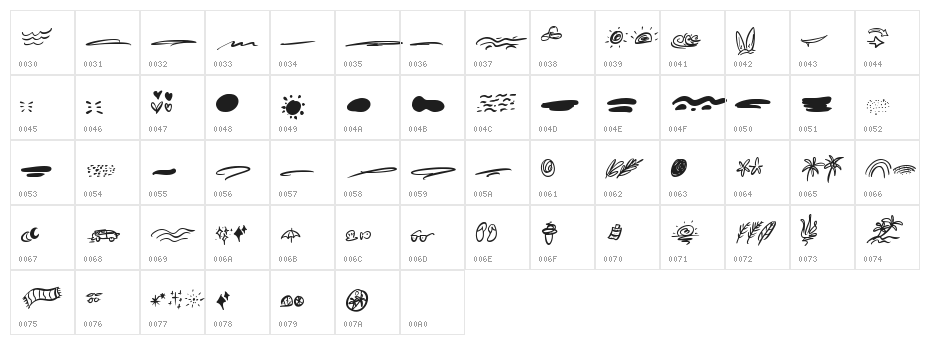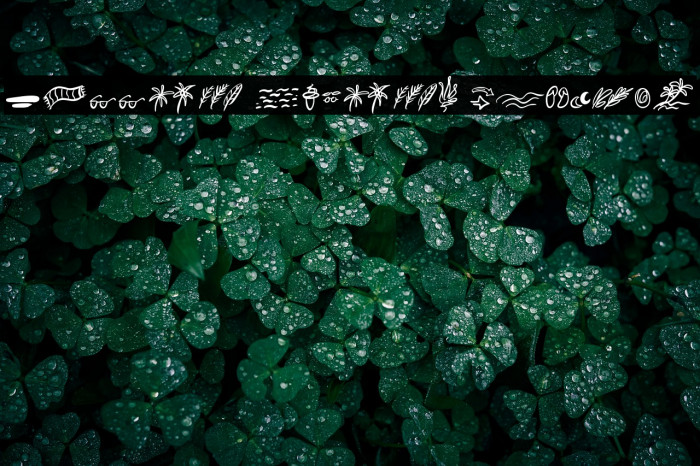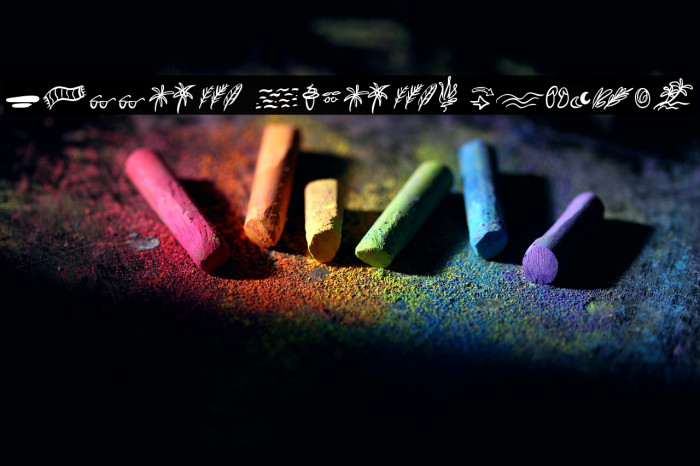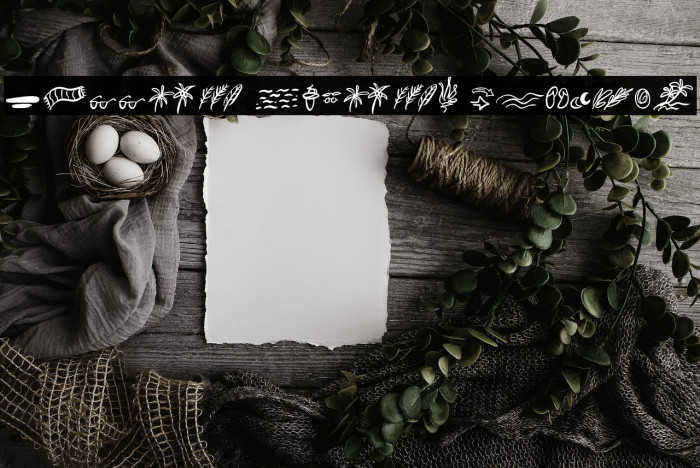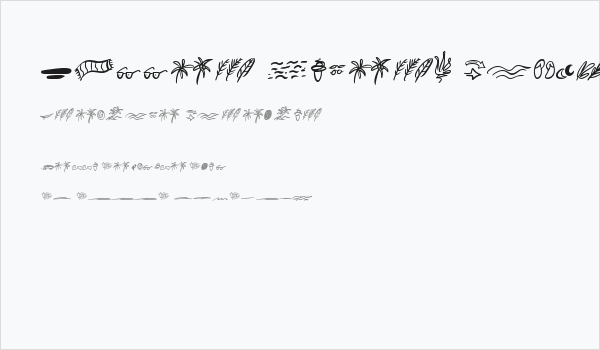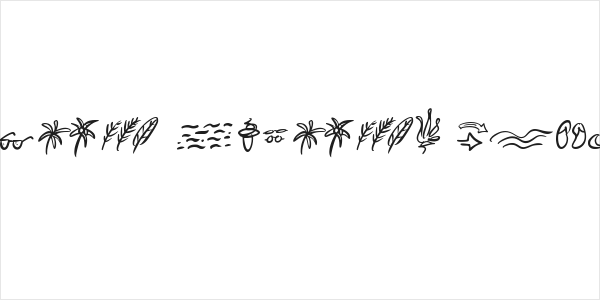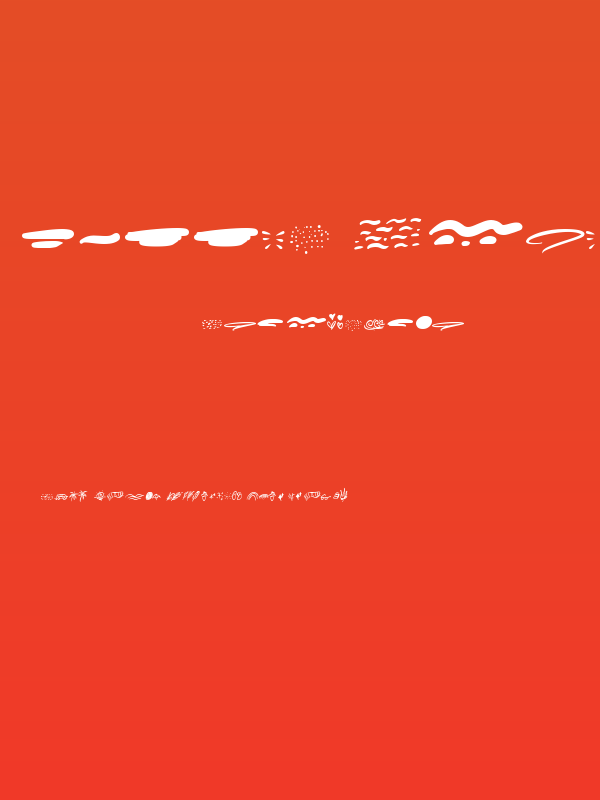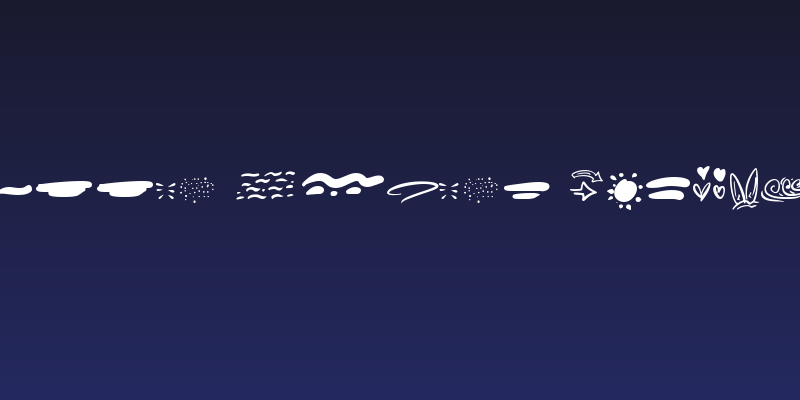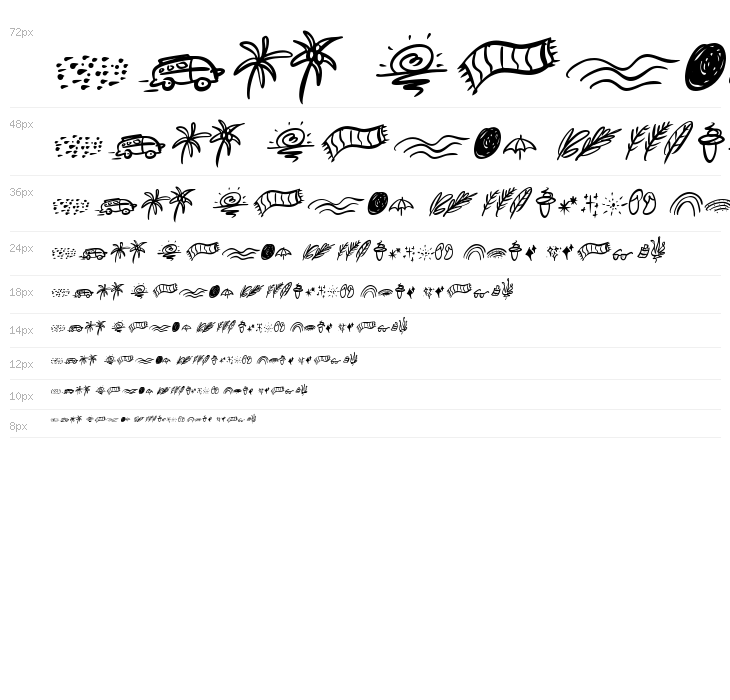
Summer Lovers Dingbat Font
Summer Lovers Dingbat Description
This collection features a playful and whimsical set of dingbats that evoke the essence of summer. The designs include elements such as waves, sun, palm trees, and beach accessories, all rendered in a hand-drawn style. The characters are bold and expressive, capturing the carefree and vibrant spirit of the season. Each symbol is distinct, with a variety of shapes and forms that add a dynamic and lively feel to any project. The overall style is casual and fun, making it perfect for projects that aim to convey a sense of joy and relaxation.
| Use Case | Logos, Decorative elements, Invitations |
| Proposed Projects | Ideal for summer-themed invitations, beach party flyers, vacation brochures, and playful branding. |